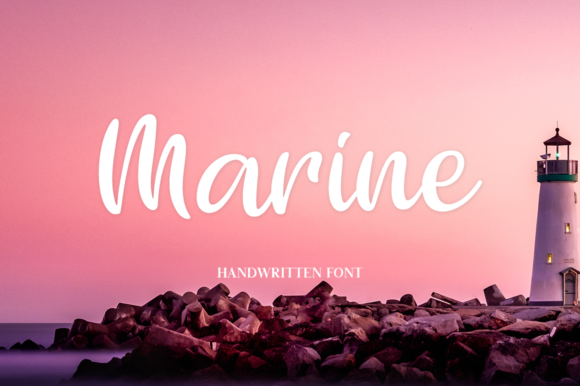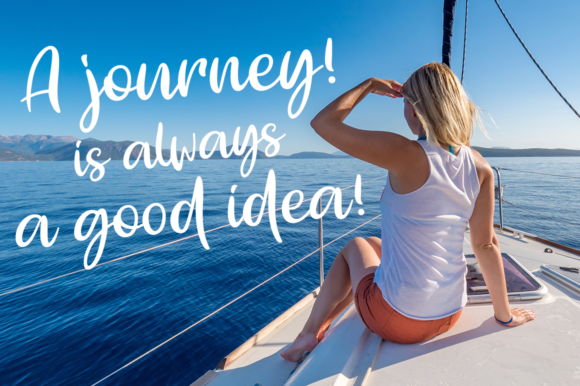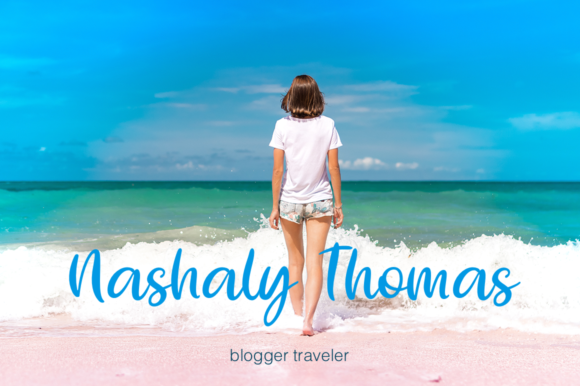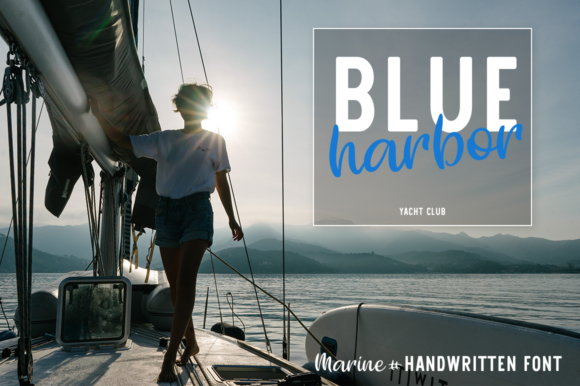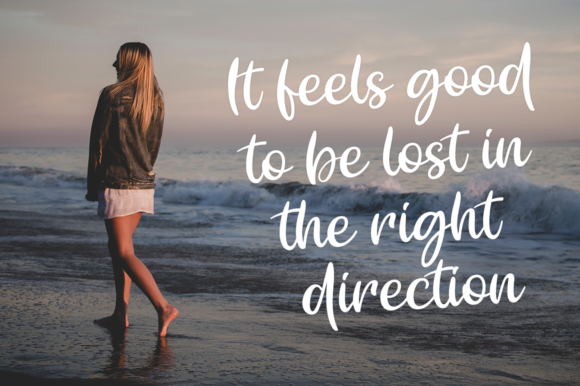
Lighthouse Font
About Lighthouse Font
The Marine is a handmade calligraphy script. It has an striking, yet elegant touch which can be used to make your design stand out.